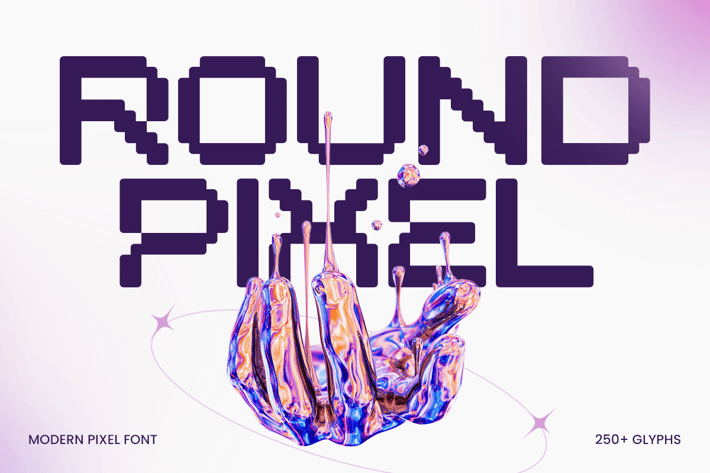
Round Pixel - Bitmap Pixel Font
Round Pixel is a bitmap pixel font designed to bring a futuristic edge to digital projects. Its precise pixel structure evokes the essence of classic video games while offering a modern touch, making it perfect for tech and futuristic-themed designs. Inspired by digital screens and pixel art, Round Pixel blends nostalgia with innovation, giving your work a timeless yet cutting-edge appeal.
Ideal for sci-fi movie titles, tech presentations, video game interfaces, app designs, and digital branding, Round Pixel offers versatility with its clean lines and geometric form. Its blocky aesthetic ensures readability while delivering a bold visual statement, making it a favorite for designers aiming to stand out in the digital space.
With support for multiple languages and various OpenType features, Round Pixel ensures seamless integration into your workflow. Whether you’re creating futuristic logos, UI elements, or animated graphics, this font provides the precision and style needed for top-tier designs.